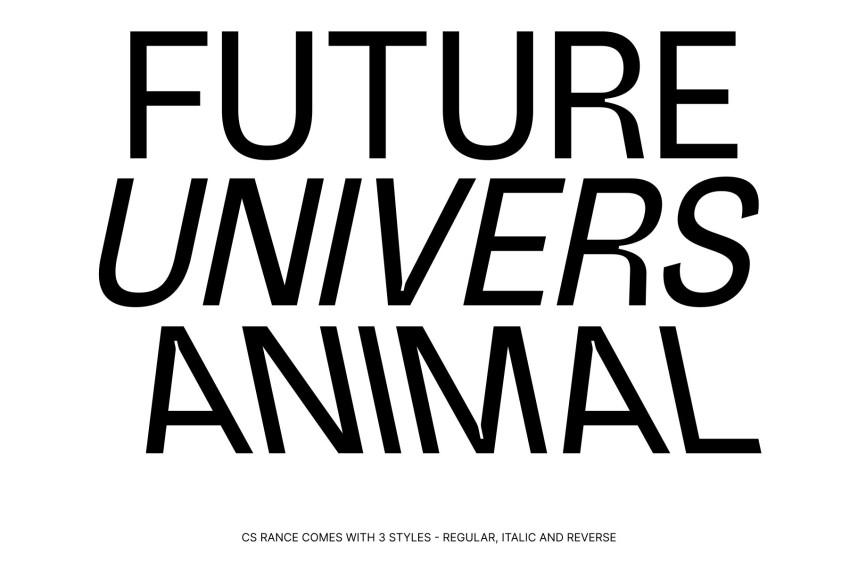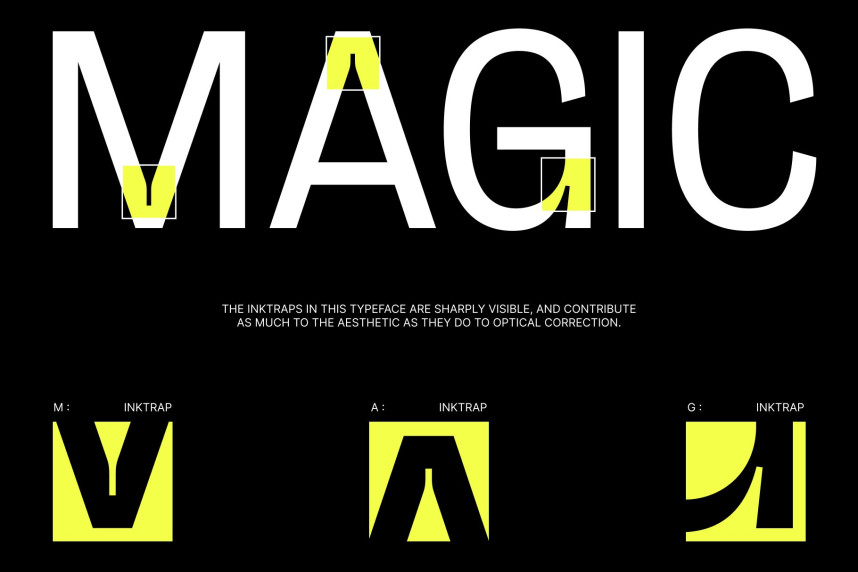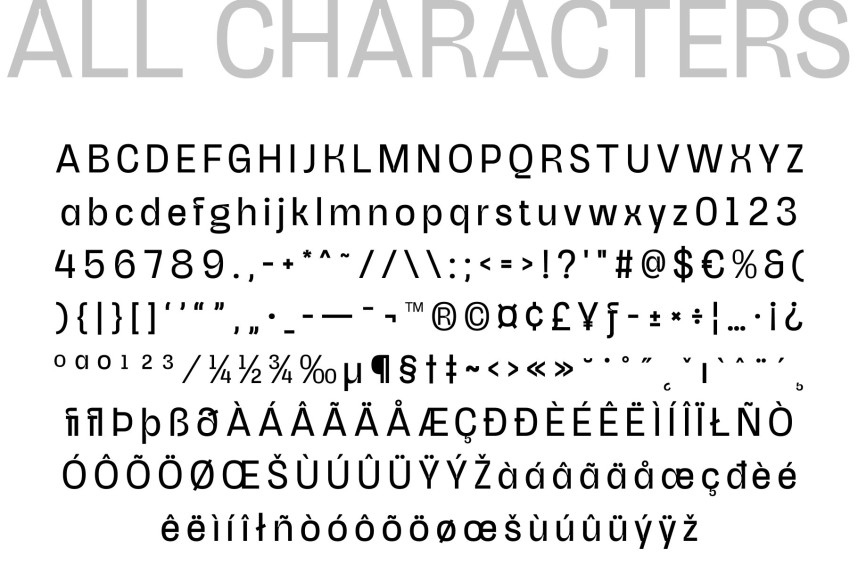
CS Rance Font
CS Rance Font – Modern Sans Serif with Functional Inktrap Precision
Modern Sans Serif with Contemporary Character
This is a modern sans serif font designed to combine clean contemporary aesthetics with functional typographic detailing. Featuring precise construction and carefully crafted inktrap elements, this typeface delivers a professional and characterful appearance that feels both modern and highly refined. It is ideal for designers who seek typography that balances technical precision with visual personality.